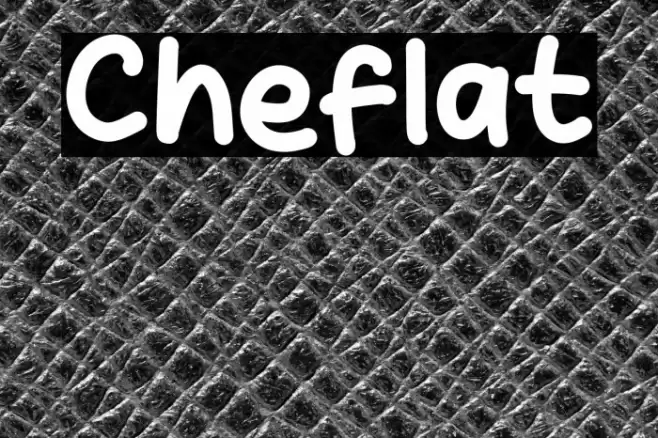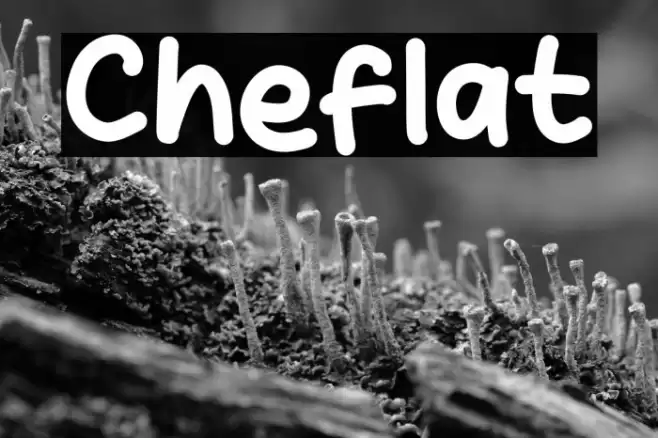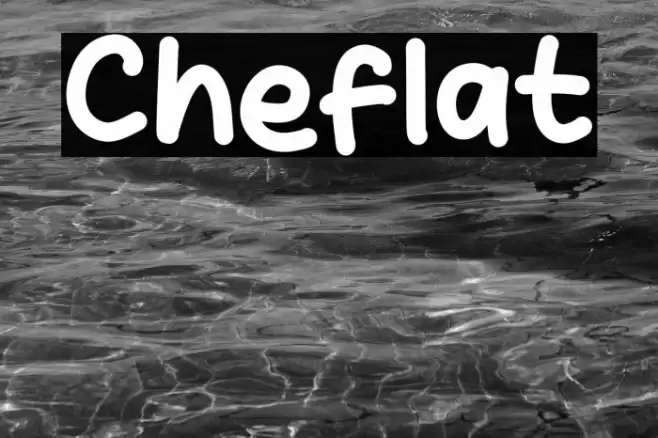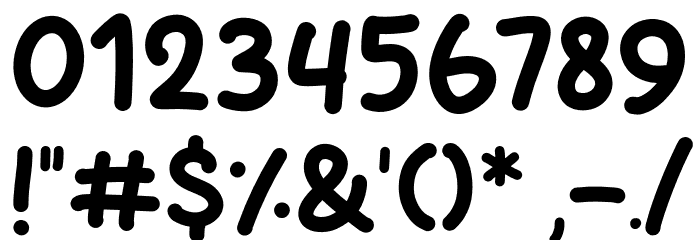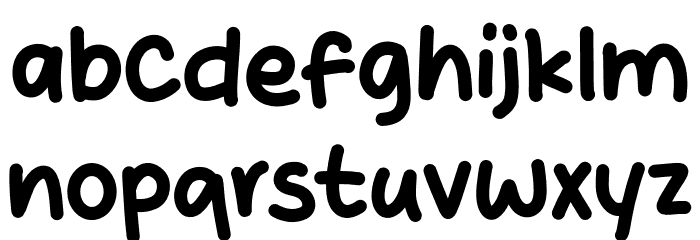
Cheflat Font
Cheflat Description
This playful and rounded font exudes a friendly and approachable vibe. The characters are bold and slightly irregular, giving them a hand-drawn appearance. The strokes are consistent in thickness, contributing to a uniform look across all letters and numbers. The font maintains a casual and informal style, making it suitable for projects that require a touch of whimsy or creativity. The special characters are well-integrated, maintaining the same playful aesthetic as the alphabet and numerals. Overall, this font is perfect for designs that aim to be engaging and lively.
A playful, rounded font with a hand-drawn, informal style from Kids fonts.
- Proposed Projects: Ideal for children's books, playful branding, casual invitations, and creative posters.
- Overall Style: Casual